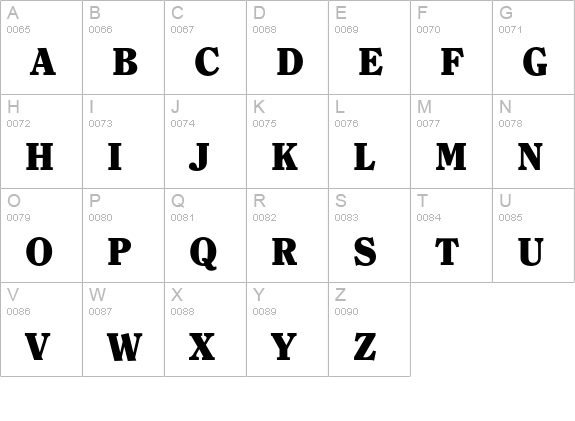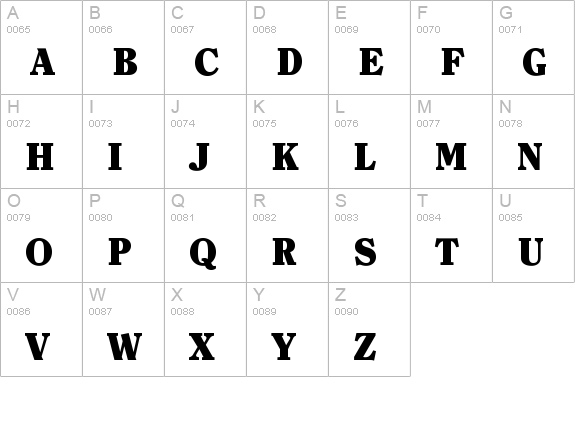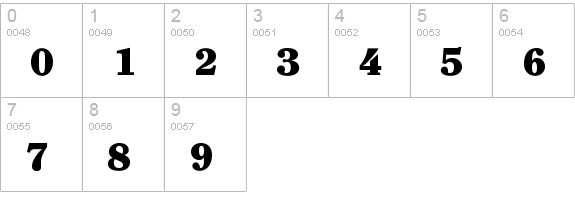
ClearfaceEF-Black is a maximum-weight, dramatic variant in the ClearfaceEF typeface family \xE2\x80\x94 well suited to maximum-impact headlines, posters, and packaging.
ClearfaceEF-Black is a timeless and versatile font that exudes sophistication and elegance. Its bold and striking design makes it perfect for headlines, titles, and other eye-catching text elements. With its clean lines and sharp edges, ClearfaceEF-Black commands attention and leaves a lasting impression. This font is not only visually appealing but also highly readable, making it a great choice for a wide range of design projects. Whether you're creating a poster, a logo, or a website, ClearfaceEF-Black will add a touch of class and style to your work. Best of all, ClearfaceEF-Black is available for free download at FontsMarket.com. Now you can easily access this stunning font and incorporate it into your projects without any cost. Don't miss out on the opportunity to enhance your designs with the timeless beauty of ClearfaceEF-Black. Download it today and take your creativity to the next level!